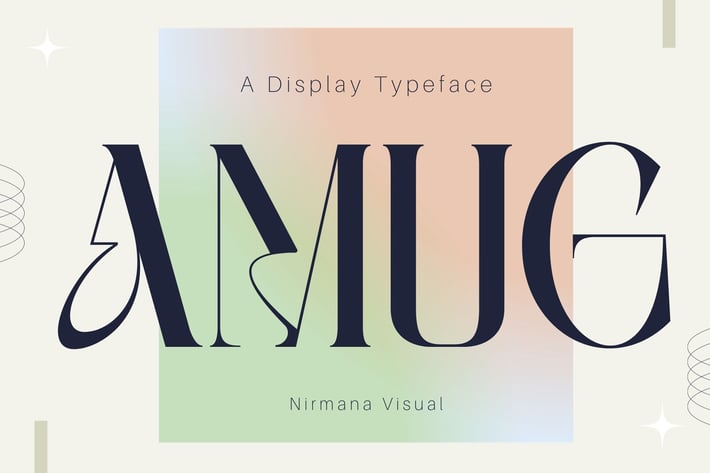
Amug - Logo Font
Amug ,contemporary of Sans serif font,
Amug offers beautiful typographic harmony for a diversity of design projects, including logos & branding, social media posts, advertisements & product designs.